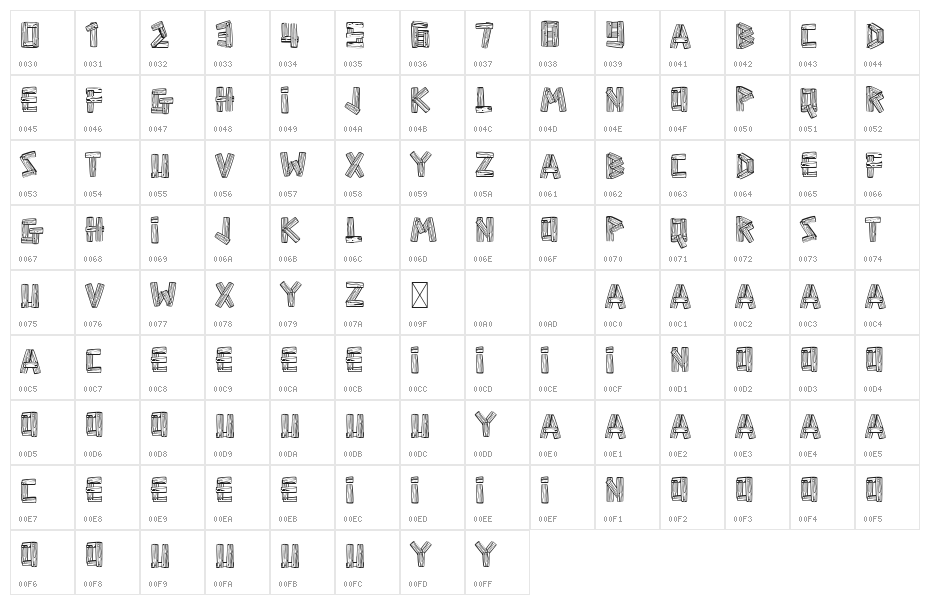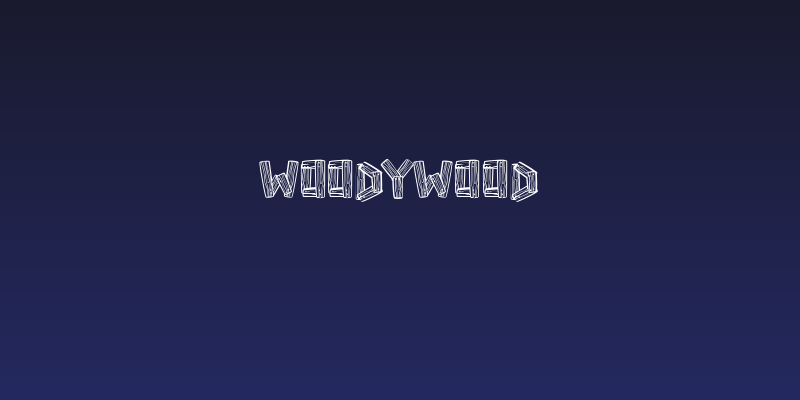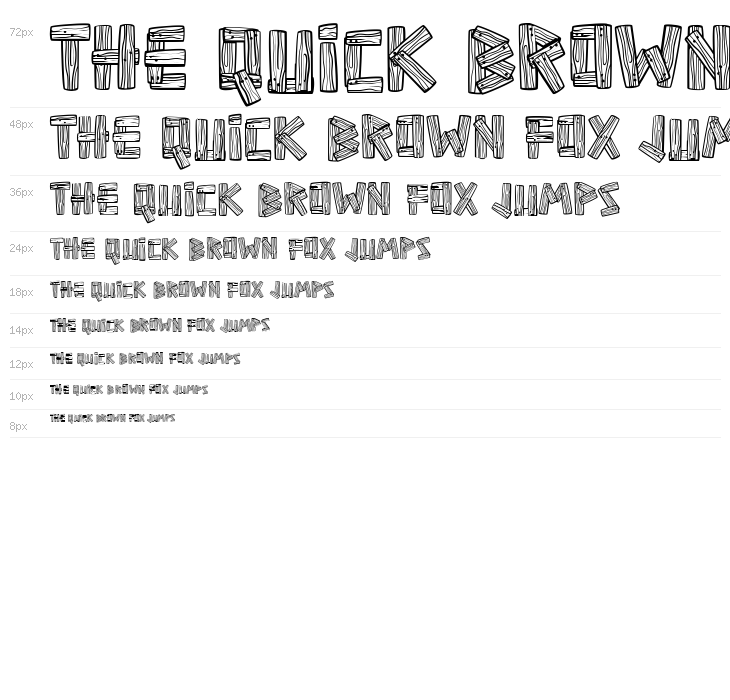
WoodyWood Font
WoodyWood Description
This font features a unique, hand-drawn style that mimics the appearance of wooden planks. Each character is constructed to resemble pieces of wood, complete with grain patterns and uneven edges, giving it a rustic and organic feel. The letters are bold and have a playful, cartoonish quality, making them stand out with a three-dimensional effect. The font's design is consistent across uppercase, lowercase, numbers, and special characters, maintaining the wooden theme throughout. Its distinctive style is eye-catching and perfect for projects that require a natural or outdoorsy aesthetic.
Proposed ProjectsIdeal for children's books, nature-themed posters, outdoor event flyers, and eco-friendly product packaging.